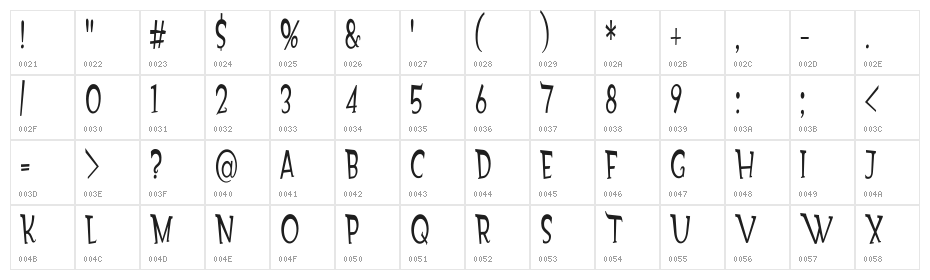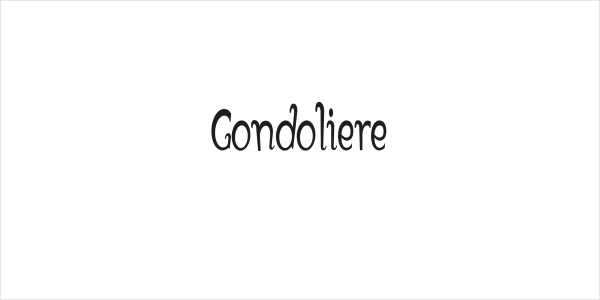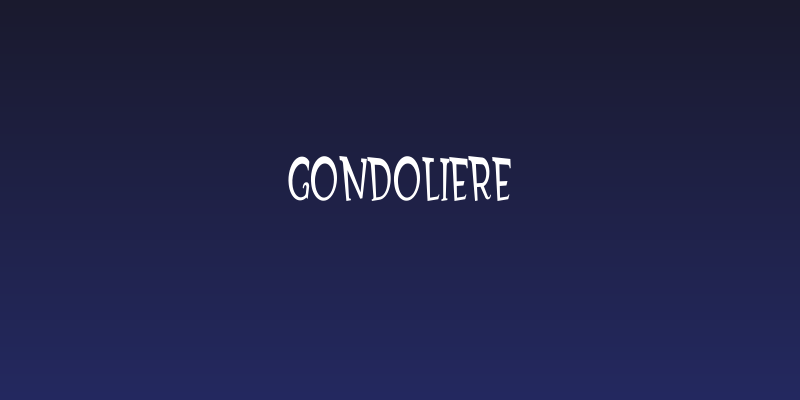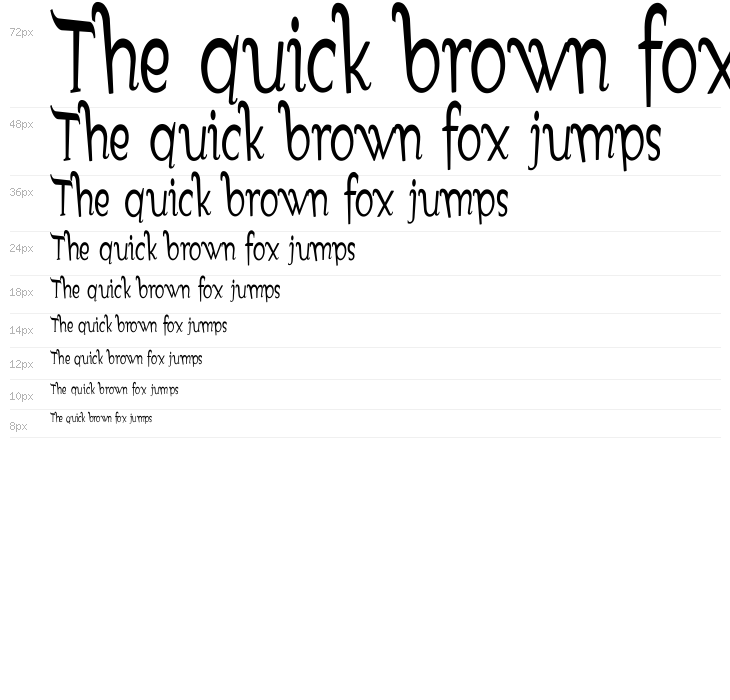
Gondoliere Font
Gondoliere Description
This font features a whimsical and playful design with a touch of elegance. The uppercase letters are tall and slightly narrow, with unique curves and angles that give them a distinctive character. The lowercase letters maintain a consistent style, with some characters featuring playful loops and swirls. The numerals are bold and clear, matching the overall style of the alphabet. Special characters are creatively designed, adding to the font's decorative appeal. The font's overall style is both artistic and readable, making it suitable for a variety of creative projects.